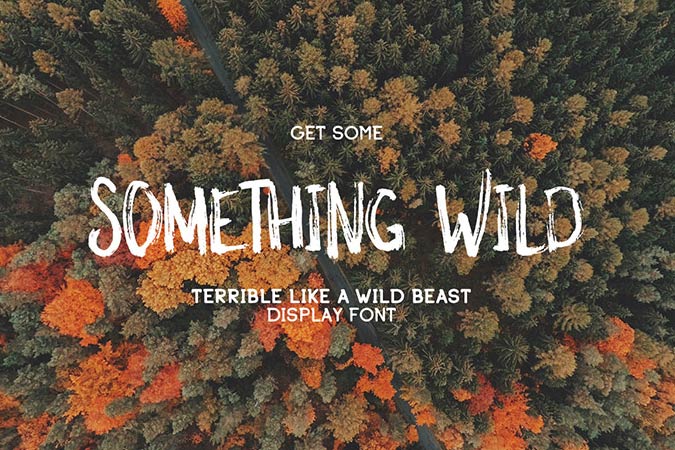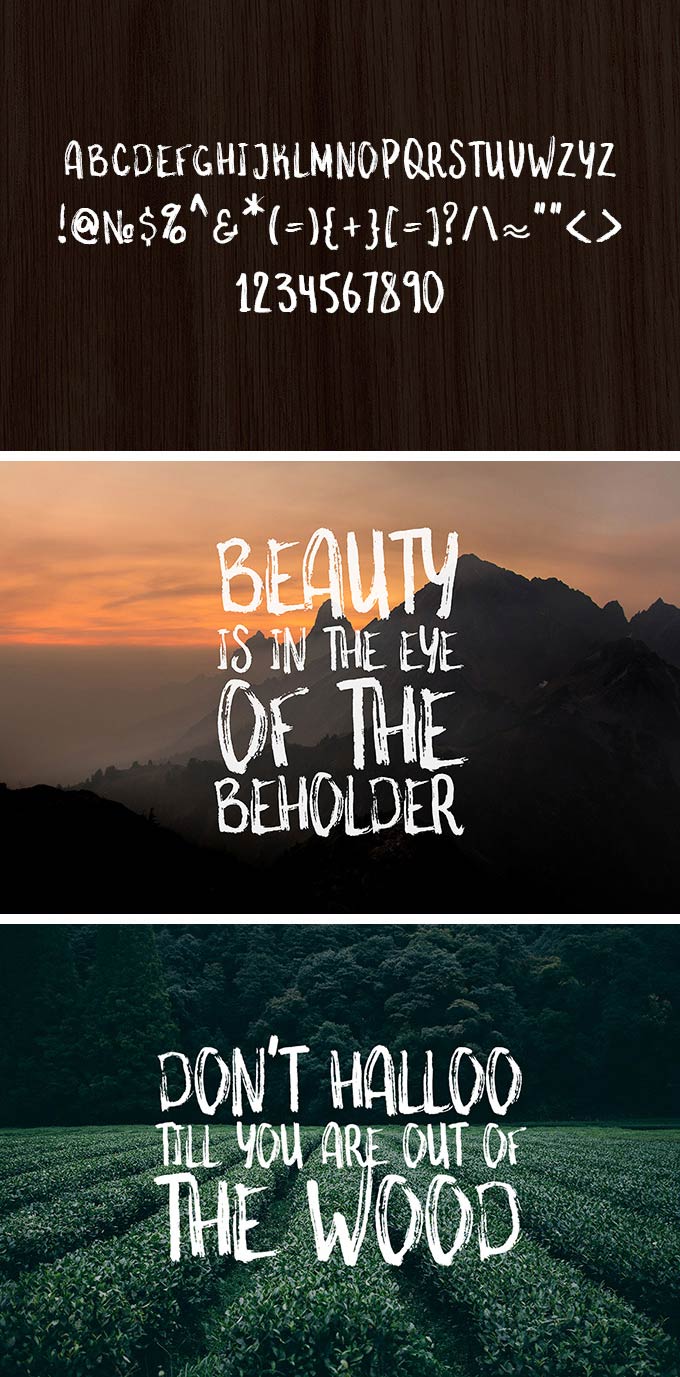
Something Wild is a handwritten brush font that is free to download. It has only uppercases, and the letters are condensed and tall, with features of roughness of brush strokes. Despite all uppercases, the letter “y” and “u” were depicted in lowercase style which kind of created a personal touch from the designer.